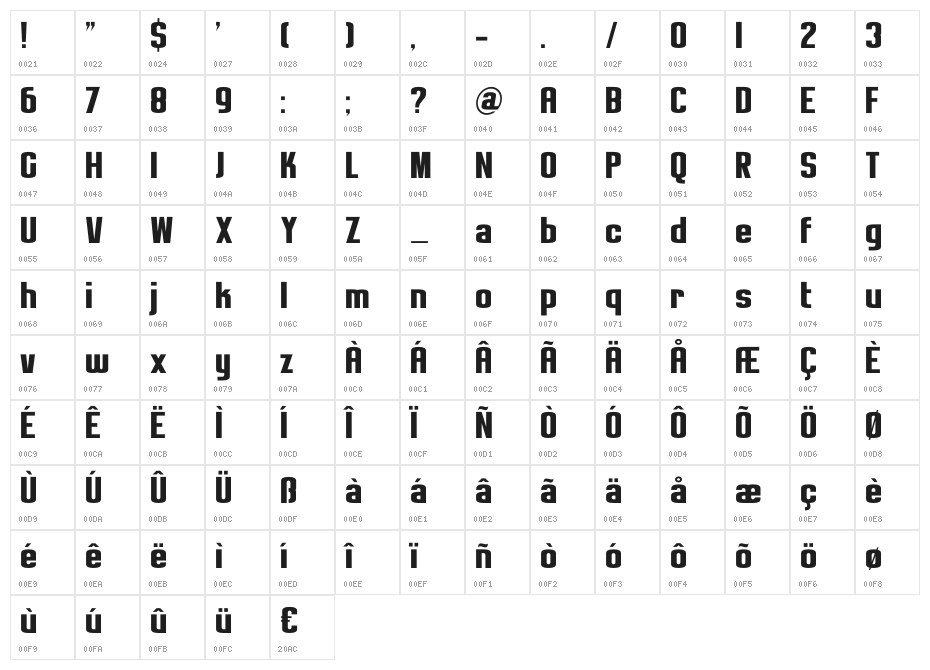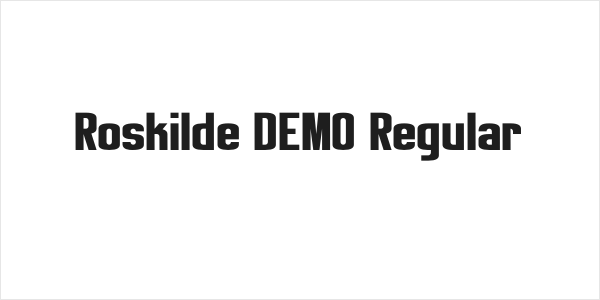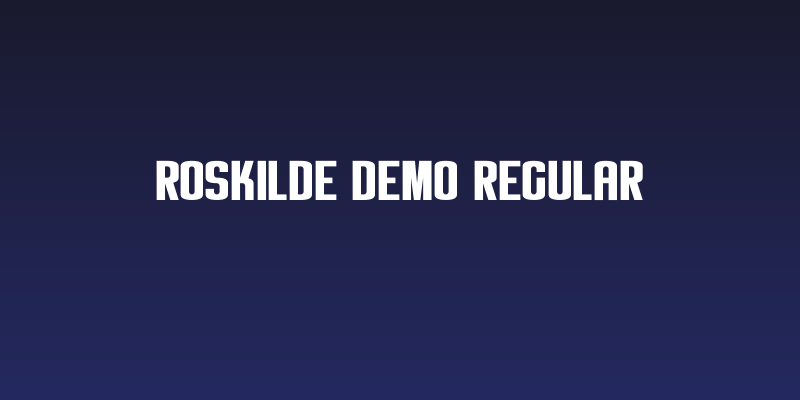
Roskilde DEMO Regular Font
Roskilde DEMO Regular Description
This font features a bold and impactful design, characterized by its thick, uniform strokes and geometric shapes. The uppercase and lowercase letters maintain a consistent width, giving the typeface a strong and cohesive appearance. The numbers and special characters are equally bold, ensuring readability and emphasis. The font's style is modern and assertive, making it suitable for projects that require a strong visual presence. Its clean lines and lack of serifs contribute to a contemporary and professional look.
| Proposed Projects | Ideal for branding, headlines, posters, and any design requiring a strong visual impact. |